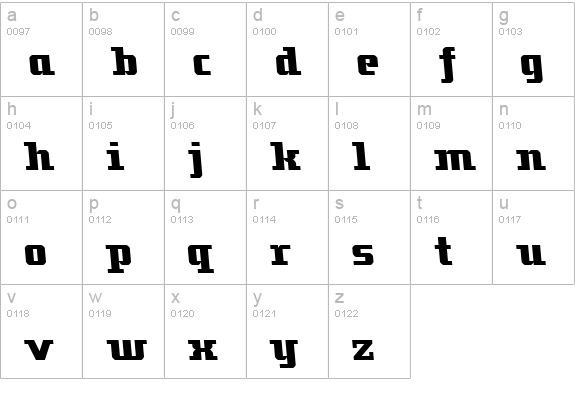
Zenith 2000 Font Details
Zenith 2000 font is a modern and stylish typeface that exudes elegance and sophistication. With its clean lines and sleek design, Zenith 2000 is perfect for a wide range of design projects, from branding to editorial. This versatile font is sure to make your work stand out and leave a lasting impression. The best part? Zenith 2000 is available for free download at FontsMarket.com. Whether you're a designer looking to add a touch of class to your projects or a creative looking for a new font to inspire your work, Zenith 2000 is the perfect choice. Download it today and see for yourself the impact this font can have on your designs.